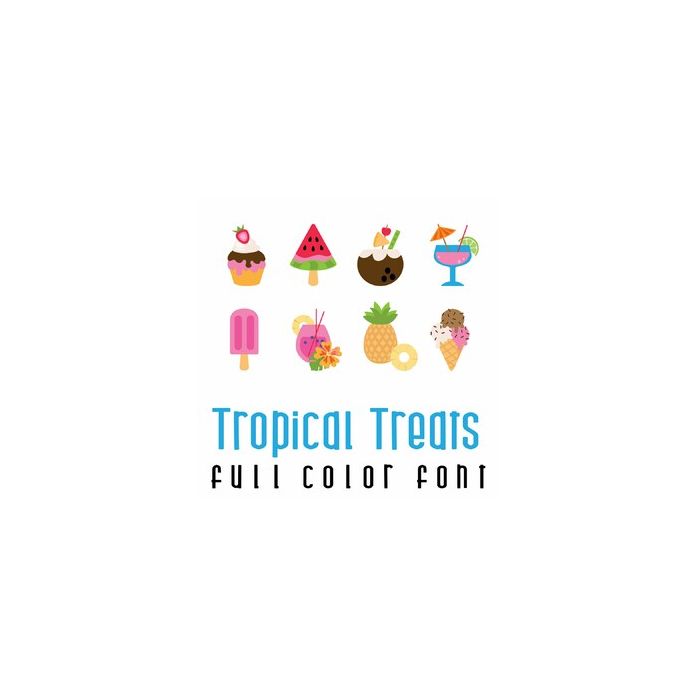
This adorable full-color doodlebat font features 26 tropical treats and cocktails. Perfect for cards, crafts, gifts, decor, scrapbook pages, planner stickers, and more!